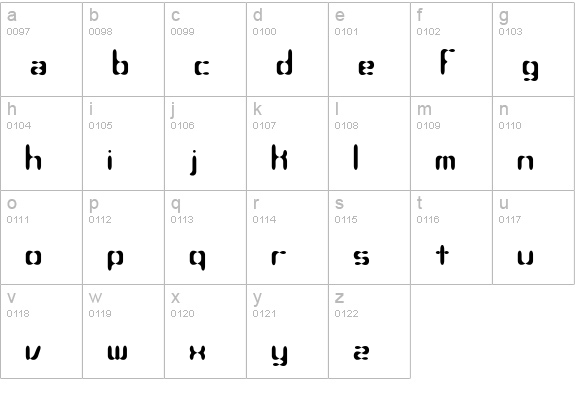
Compliant Confuse 2s -BRK- is a unique and eye-catching font that combines a sense of compliance with a touch of confusion, making it perfect for projects that require a balance of structure and creativity. The quirky design of this font adds a playful element to any text, making it stand out and capture attention. What sets Compliant Confuse 2s -BRK- apart is its versatility - it can be used for a wide range of purposes, from branding to advertising to social media posts. The bold and distinctive characters make a statement while remaining easy to read, ensuring that your message is conveyed effectively. Best of all, Compliant Confuse 2s -BRK- is freely available to download at FontsMarket.com, allowing you to add this unique font to your collection without any cost. Don't miss out on the opportunity to enhance your designs with the playful charm of Compliant Confuse 2s -BRK-. Download it today and let your creativity shine!